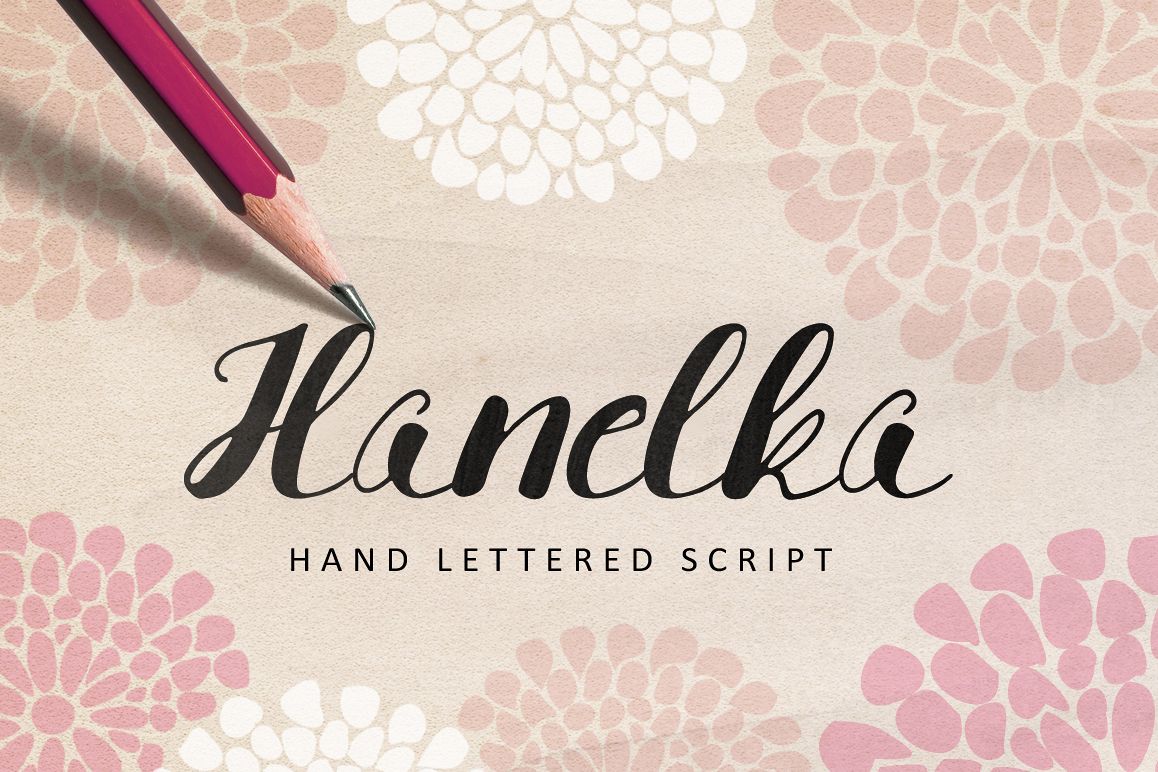
Hanelka
I would like to introduce you **Hanelka** – the elegant handlettered script. **Hanelka** will give to your work artistic handmade feel. Great for various kinds of your projects – wedding announcements, greeting cards, invitations, branding, logos etc. Include uppercase, lowercase and all basic English characters. Enjoy **Hanelka**!